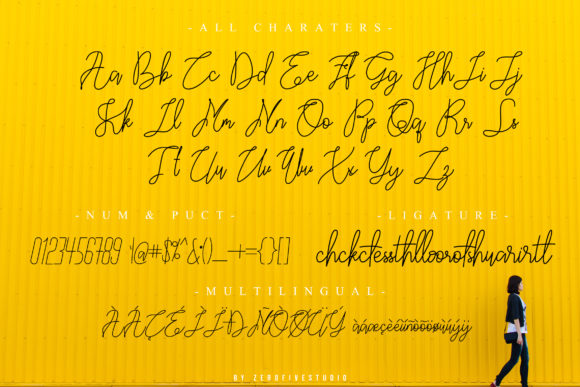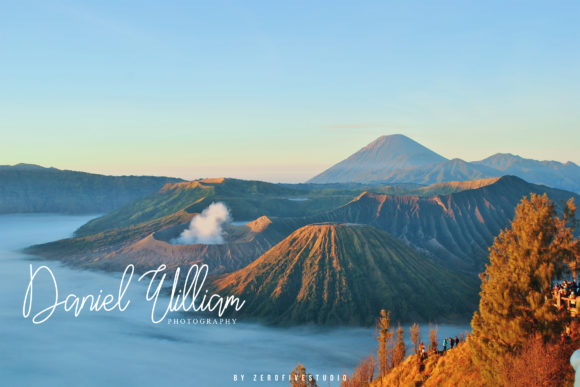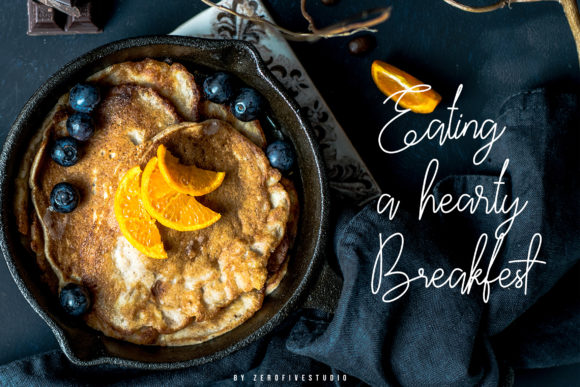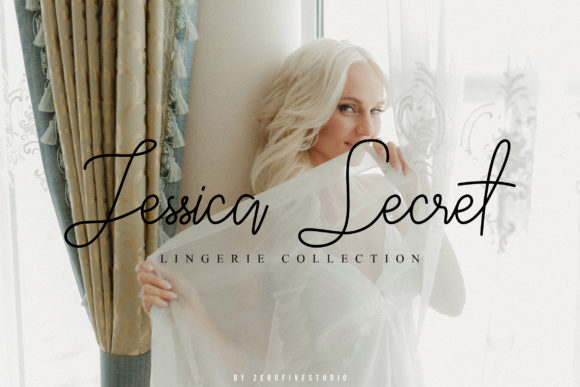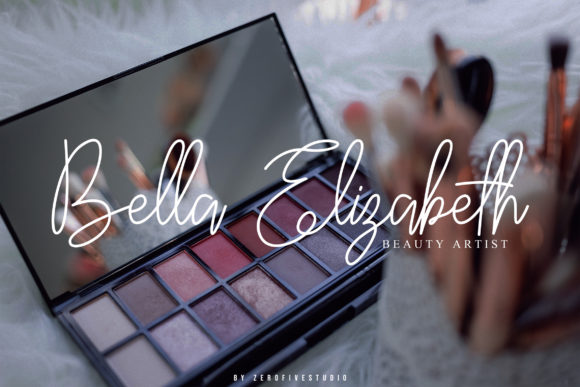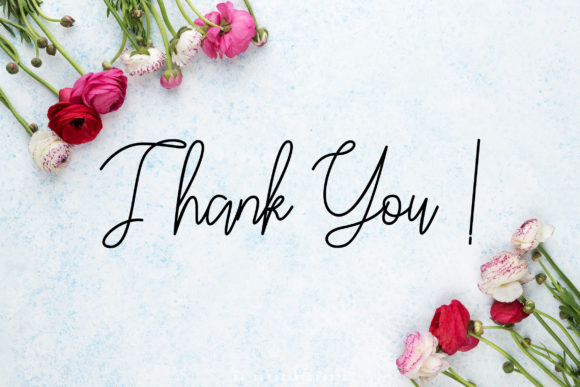
HomeScript FontsArabella Font Script Fonts Arabella Font FacebookXPinterestWhatsApp Arabella Font Poster 2 Arabella Font Poster 3 Arabella Font Poster 4 Arabella Font Poster 5 Arabella Font Poster 6 Arabella Font Poster 7 Arabella Font Poster 8 About Arabella Font Arabella is an elegant font. Its casual trace will give your designs a unique classy style! DOWNLOAD ON CREATIVE FABRICAThis font is sold and delivered by Creative Fabrica. Font Canyon may earn a commission if you buy through this link. People also explored Cutesy Font Ammaliya Font Almond Signature Font Annimi Font Babbies Font Gellato Rush Font Straight Font Magnify Font Font Jodie Garland Script Font 323 0 TagsArabella Font Previous articleSetandar FontNext articleFat Unicorn Font LEAVE A REPLY Cancel reply Comment: Please enter your comment! Name:* Please enter your name here Email:* You have entered an incorrect email address! Please enter your email address here Website: Save my name, email, and website in this browser for the next time I comment. Personal Use Free Morning Miow Personal Use Free Read more about this font Lion Teen Personal Use Free Read more about this font BD Algebra Personal Use Free Read more about this font Omira Personal Use Free Read more about this font BLOG Top 7 Google Fonts Alternatives for Faster and Privacy-Friendly Web Design (2025) Top 7 Google Fonts Alternatives for Faster and Privacy-Friendly Web Design (2025) When it comes to web typography, Google Fonts has long been the go-to... Where to Buy American Fonts Online in 2024 5 Fonts That Will Dominate Design Trends in 2026 How to Cut Any Font on Cricut: Convert a Font to SVG (Free)